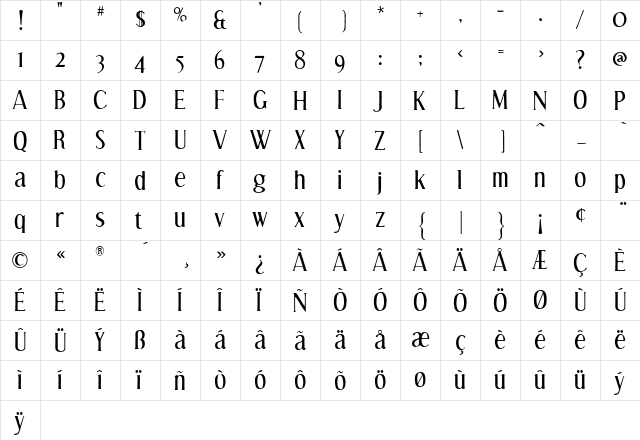
Effloresce Antique
Design Context for Effloresce Typeface
Effloresce has the warm character of retro typography — evoking diners, record sleeves, and the golden age of print advertising.
Font Pairing: Combine Effloresce with a simple slab or neutral sans — period-accurate companions reinforce the vintage feel without competing for attention.
Pro Tip: Use Effloresce for headlines and pull quotes rather than body copy — its personality is best appreciated in short, focused bursts.